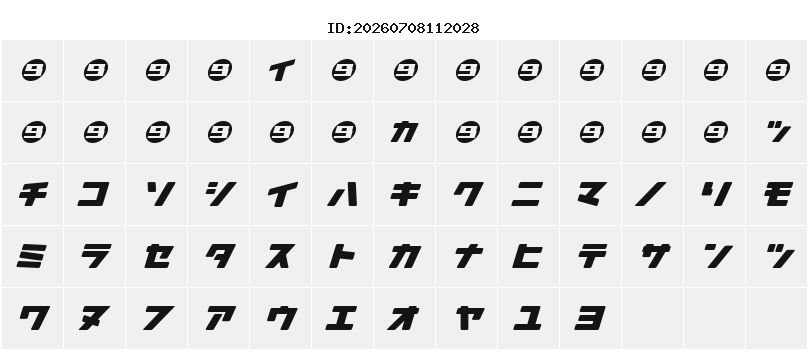
Daidoh Remix RoundJkaSha Preview
• Font Name: Daidoh Remix RoundJkaSha
• Full Font Name: Daidoh Remix RoundJkaSha
About Daidoh Remix RoundJkaSha.ttf
Daidoh Remix RoundJkaSha.ttf is a modern, elegant sans-serif font designed for ultimate readability and visual harmony. Perfect for branding, headlines, web design, and print materials.